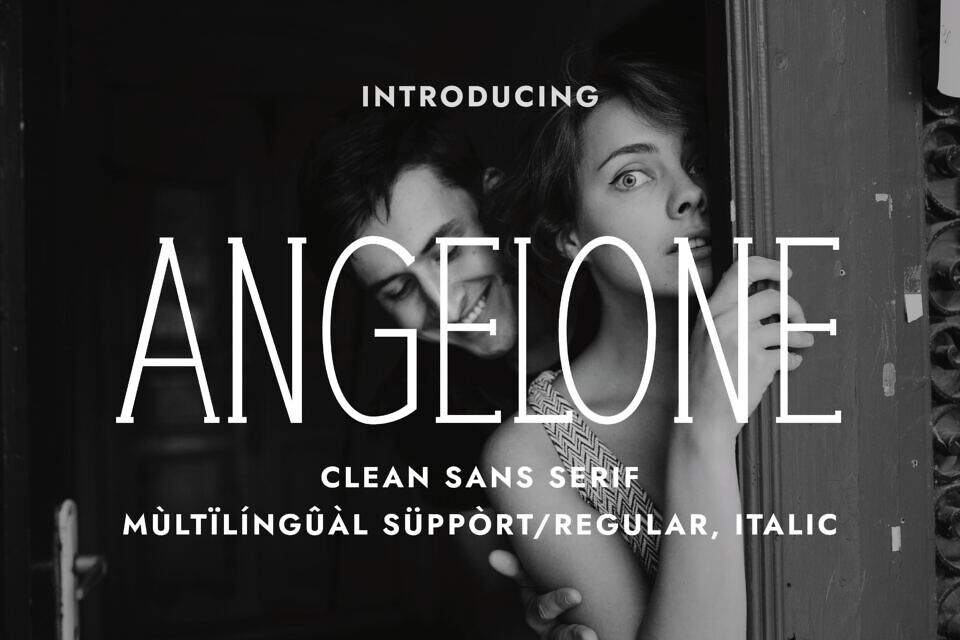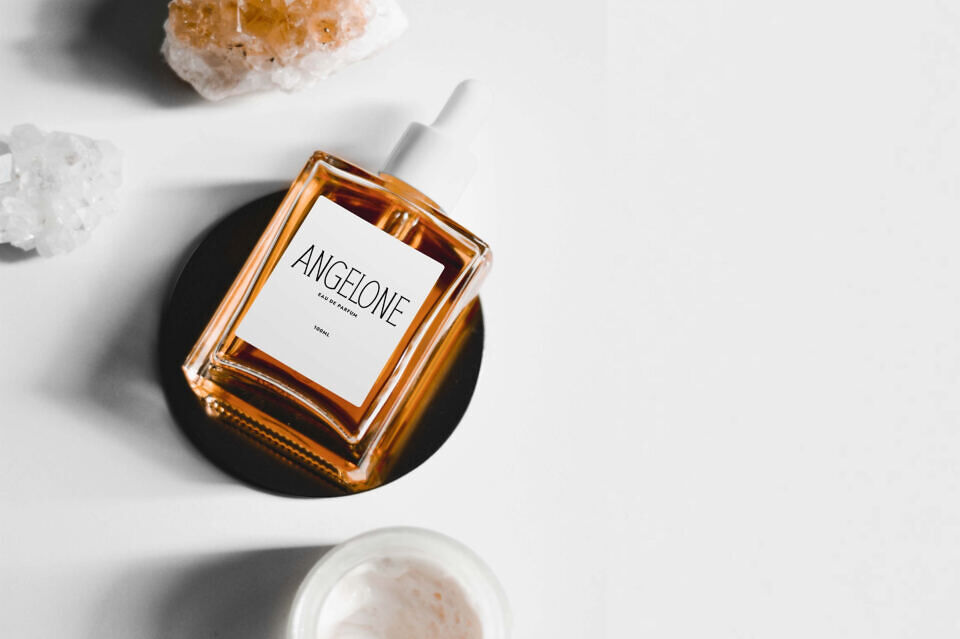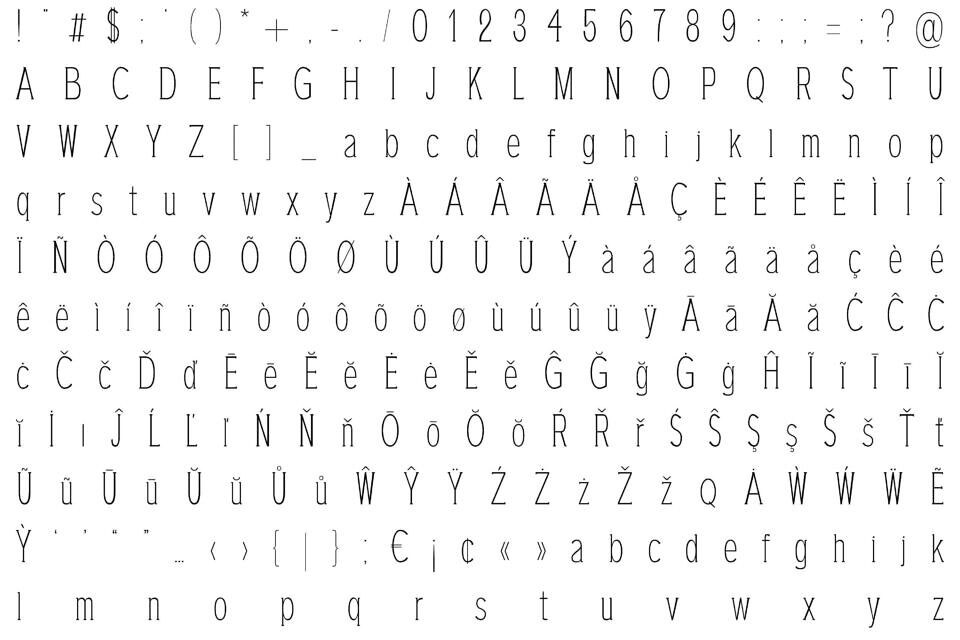
Angelone is a thin, elegant, and delicate slab serif typeface designed to be used as a display slab serif. It adapts wonderfully in contexts such as designing labels for perfumes, cosmetics, magazine covers, posters, manifests, flyers, social posts, and fashion. Use it confidently in your creations, and you will notice how much elegance it could add to any context.